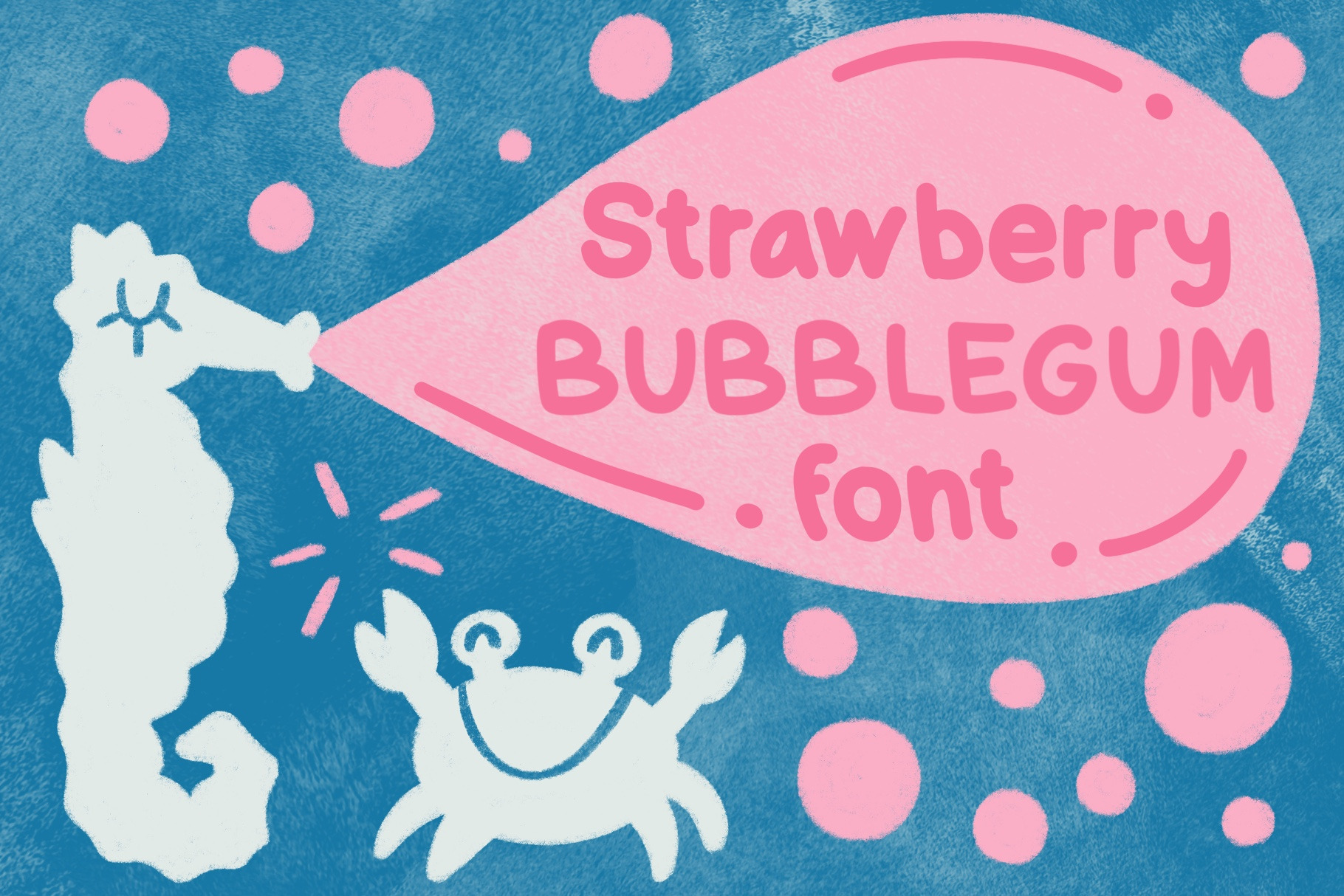
Strawberry Bubblegum font
Strawberry Bubblegum font is ideal for fun and quirky projects. You can incorporate it to your designs and illustration and add text in a fresh style.